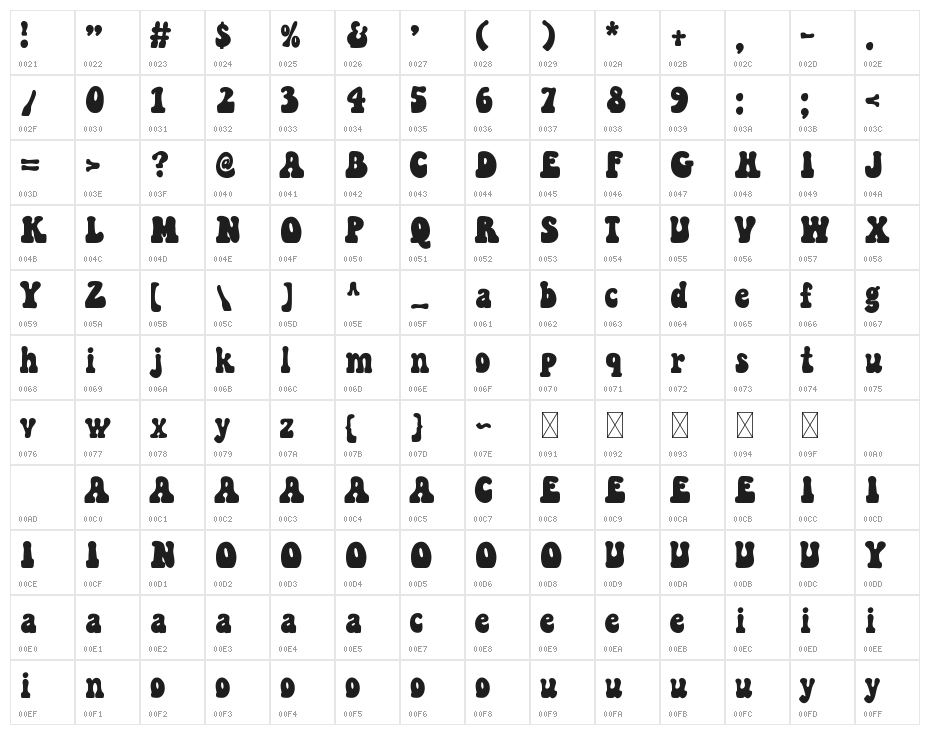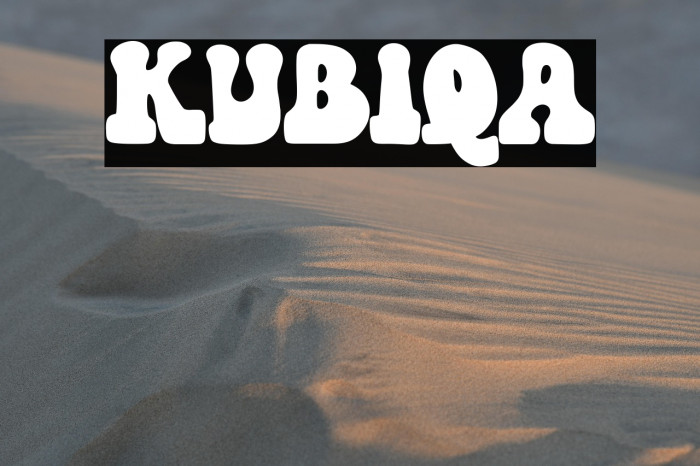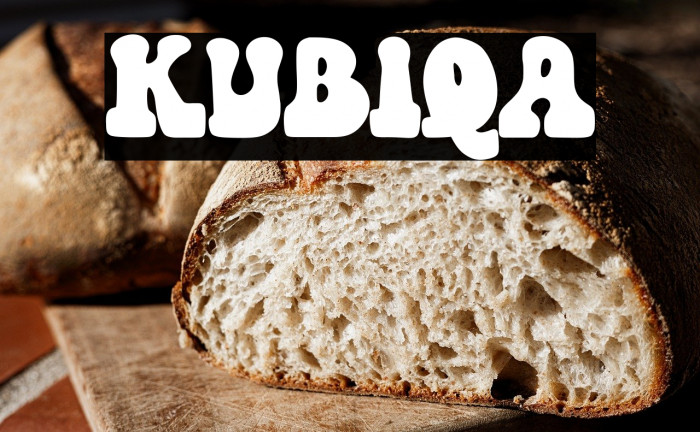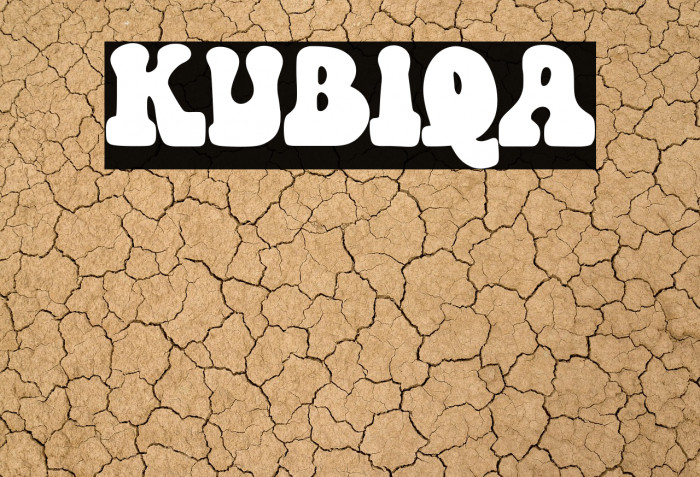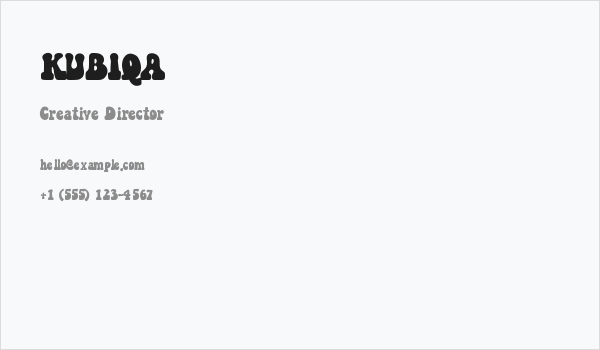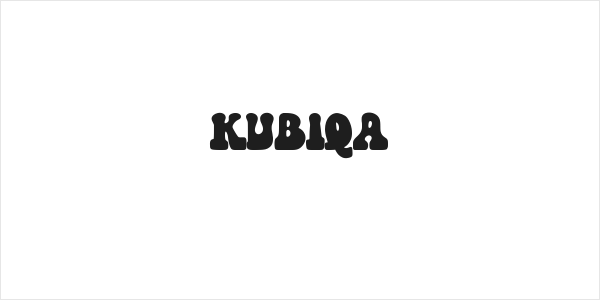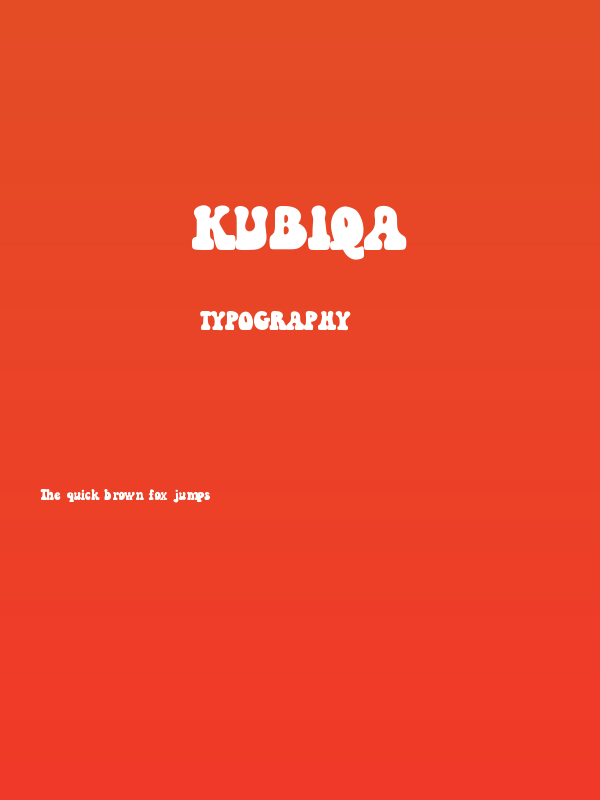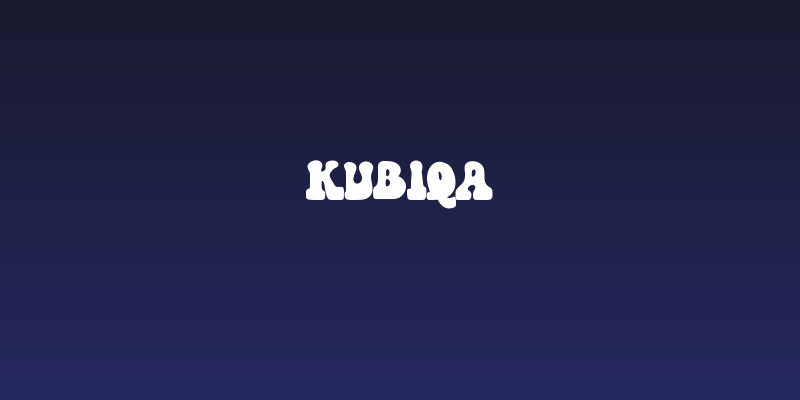
KUBIQA Font
KUBIQA Description
This font features bold, rounded characters with a playful and chunky appearance. The letters are heavily weighted, giving them a strong presence on the page. The rounded edges and thick strokes create a sense of friendliness and approachability. The font maintains a consistent weight throughout, with minimal contrast in stroke thickness. Its unique style is both eye-catching and memorable, making it suitable for creative and informal applications. The characters are closely spaced, enhancing the boldness and impact of the text. This font is ideal for projects that require a fun and engaging visual element.
| Proposed Projects | Ideal for children's books, playful branding, posters, and creative advertising. |